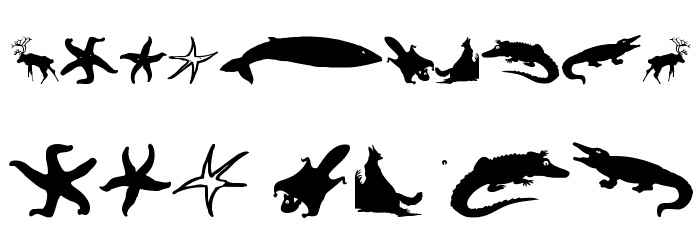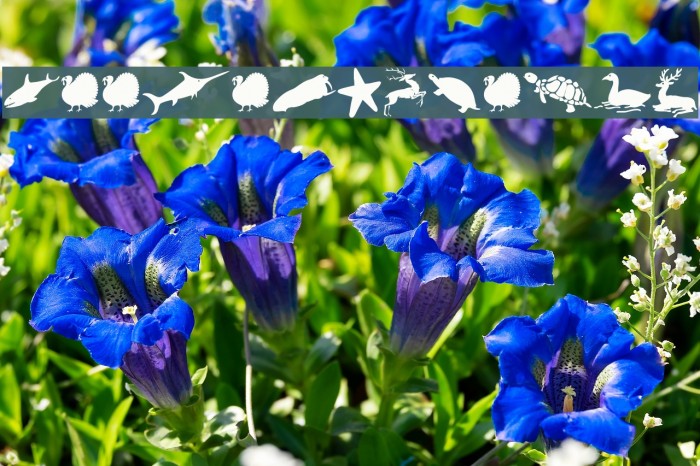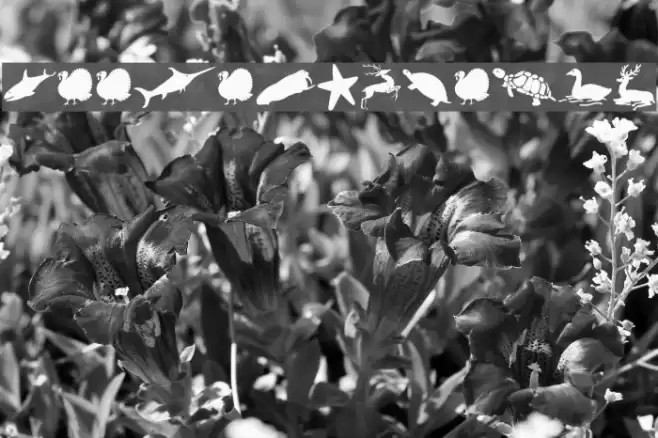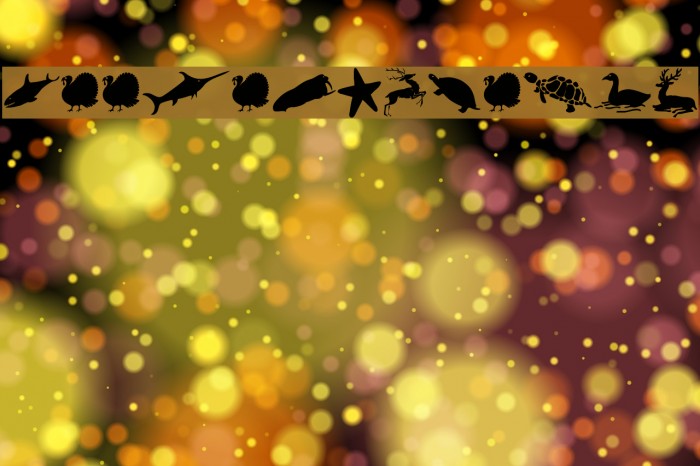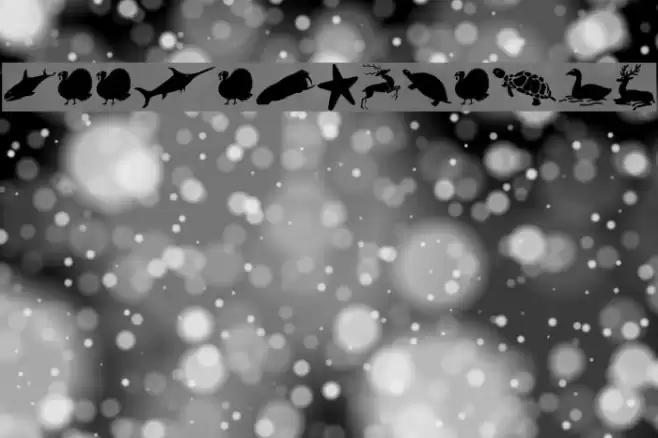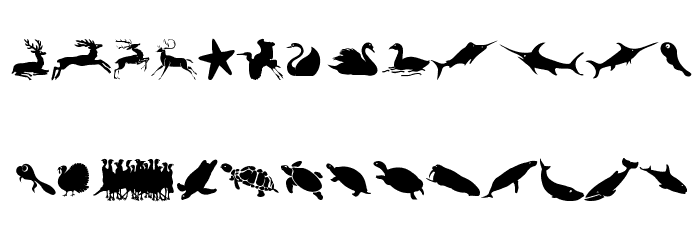
ZooloVectoriA Font
ZooloVectoriA Description
A decorative display font composed entirely of animal silhouettes, including deer, starfish, swans, turtles, whales, sharks, birds, and crocodiles. Each character is represented by a unique animal or group of animals, creating a playful and illustrative effect. The shapes are solid black with no internal detail, emphasizing bold outlines and recognizable forms.
| Overall Style | Decorative, Playful, Illustrative |
| Use Case | Logos, Headlines, Posters, Educational graphics |
| Proposed Projects | ChildrenΓ’β¬β’s books, educational materials, zoo or aquarium branding, playful posters, wildlife awareness campaigns. |